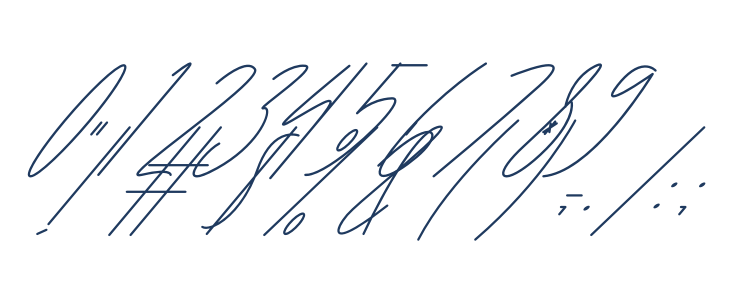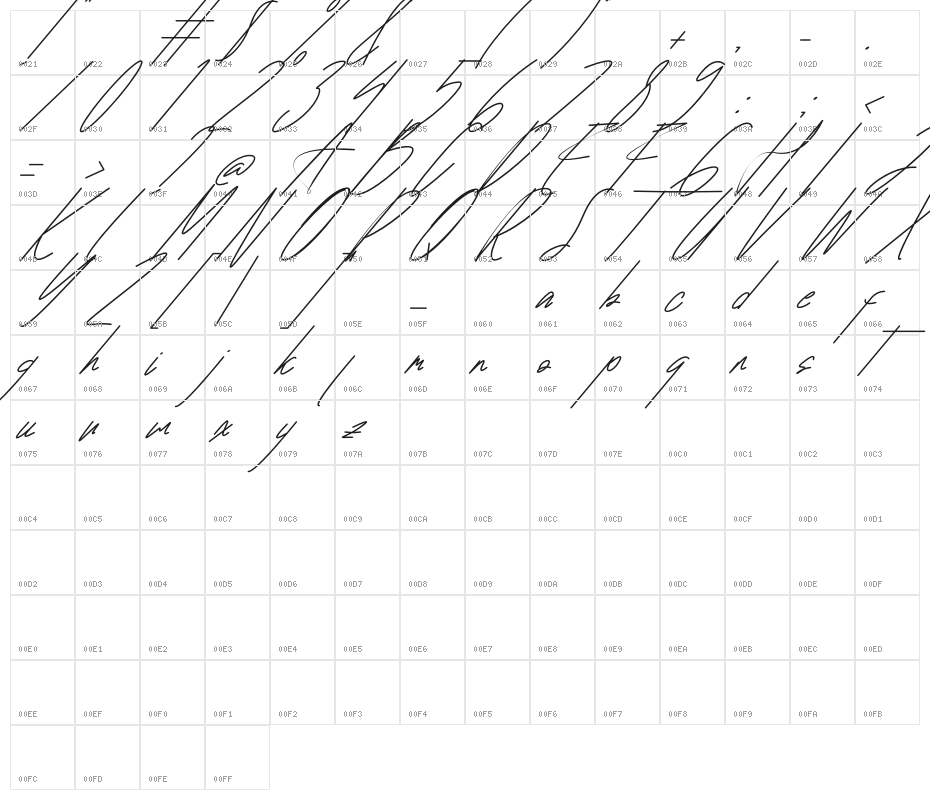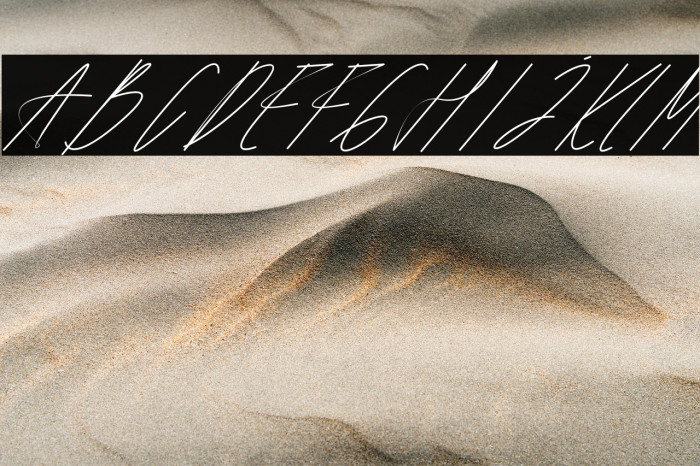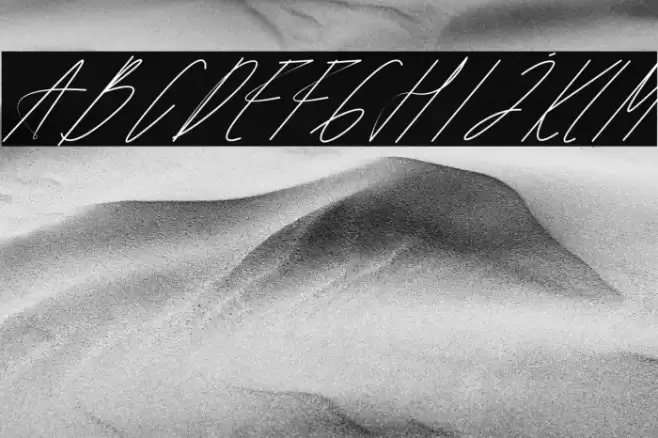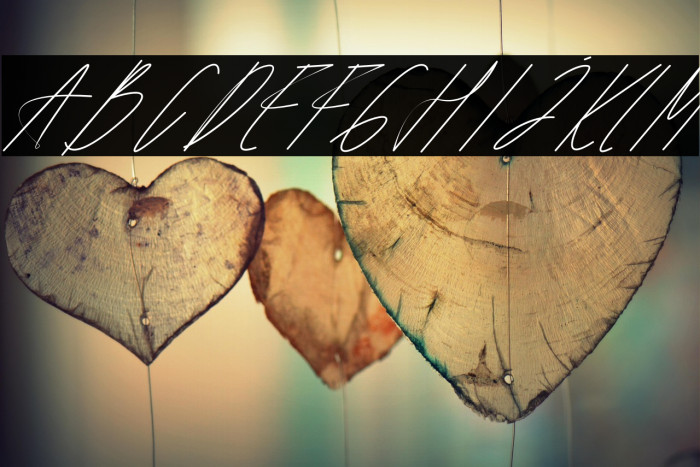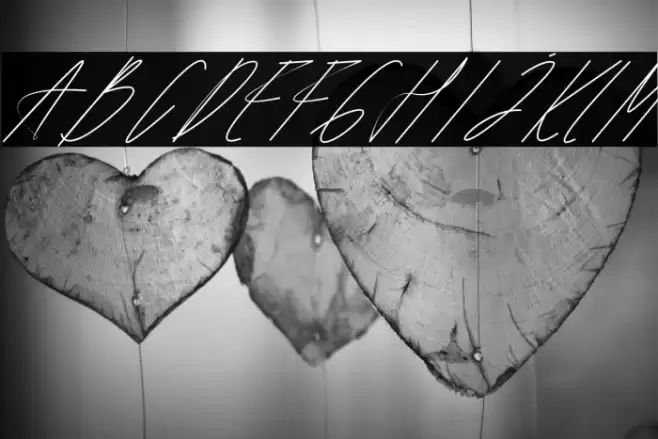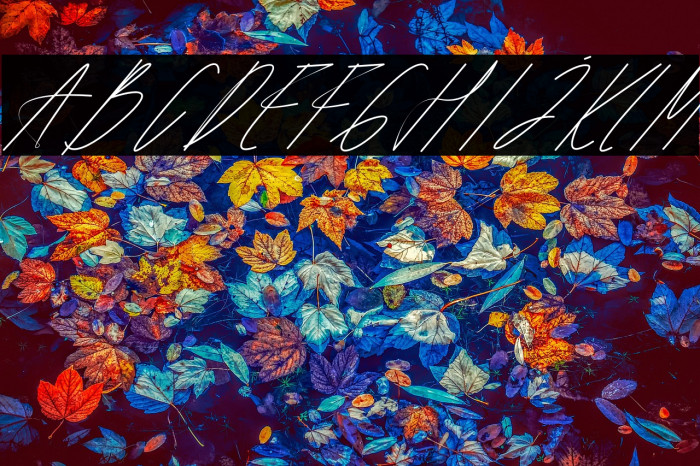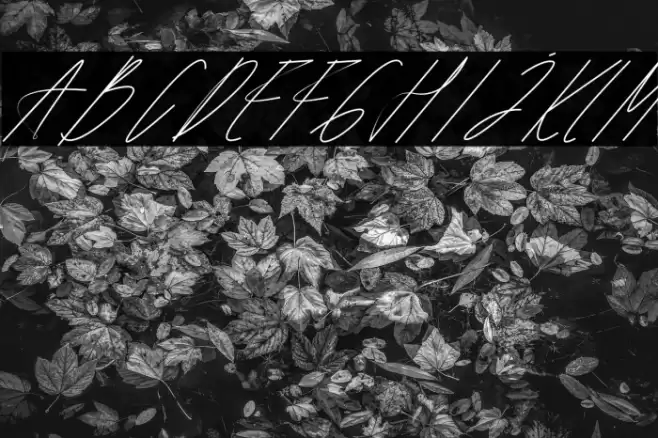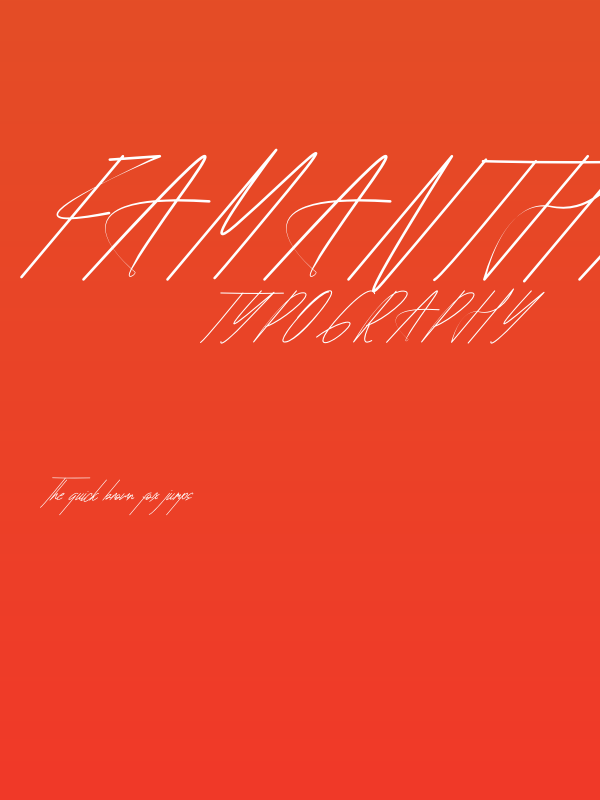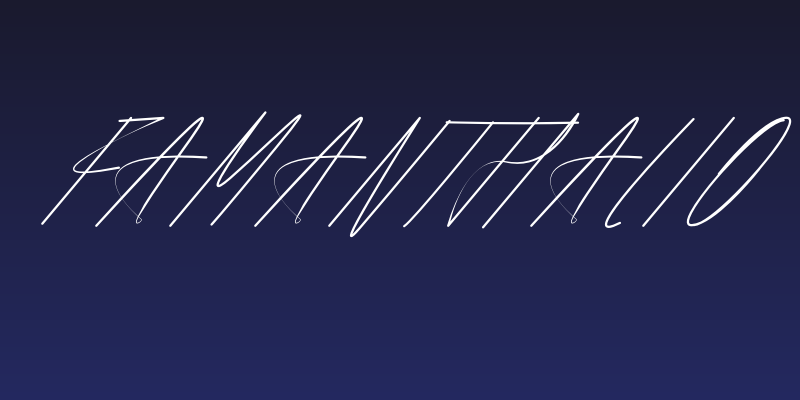
Famanthalio Font
Famanthalio Description
This font features a sophisticated and elegant script style, characterized by its flowing, cursive letters that mimic the fluidity of handwriting. The uppercase letters are tall and slender, with graceful loops and swirls that add a touch of refinement. The lowercase letters are similarly styled, maintaining a consistent slant and smooth connections between characters. The numerals and special characters follow the same elegant script, ensuring a cohesive look across all elements. This font's delicate strokes and artistic flair make it ideal for projects that require a personal, handwritten touch.